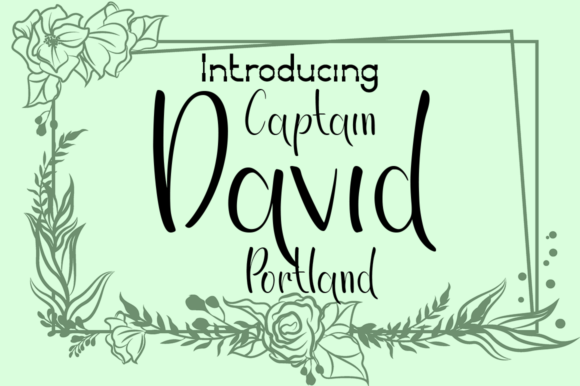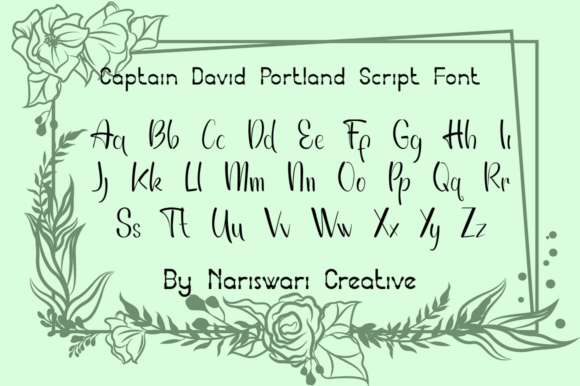
About Captain David Portland Font
Captain David Portland sounds like a delightful and versatile handwritten font that can add a touch of charm and elegance to various design projects. Let’s explore some creative ways to use Captain David Portland font and enhance the visual appeal of different materials:
1. Wedding Invitations: Utilize Captain David Portland font for wedding invitations, creating a sophisticated and personalized touch for the couple’s special day.
2. Thank You Cards: Design heartfelt thank you cards with Captain David Portland font, conveying gratitude with a touch of elegance.
3. Inspirational Quotes: Use the font to create beautiful graphics featuring inspiring quotes, perfect for sharing on social media or printing as wall art.
4. Greeting Cards: Design unique greeting cards for various occasions, such as birthdays, anniversaries, or holidays, showcasing the charm of the font.
5. Brand Logos: Apply Captain David Portland font to brand logos, especially for businesses aiming to convey a warm and friendly image.
6. Business Cards: Use the font in business card designs to make a lasting impression with a touch of handwritten elegance.
7. Personal Stationery: Incorporate Captain David Portland font into personal stationery items like letterheads and envelopes, adding a touch of sophistication.
8. Social Media Graphics: Create engaging social media graphics using the font, combining it with captivating visuals for increased impact.
9. Blog Graphics: Utilize Captain David Portland font to design attractive blog post graphics, making the content more visually appealing.
10. Art Prints: Design artistic prints using the font, combining it with illustrations or photographs to create eye-catching wall art.
11. Calligraphy Overlays: Apply Captain David Portland font as a calligraphy overlay to enhance photographs or artwork.
12. Gift Tags: Design unique gift tags using the font, adding a personalized touch to presents for special occasions.
13. Menu Headers: Use Captain David Portland font for menu headers in restaurants or cafes, elevating the dining experience.
14. Event Invitations: Create elegant event invitations, such as cocktail parties or formal gatherings, using the font’s charming appeal.
15. Handwritten Signage: Use Captain David Portland font for handcrafted signage at events, fairs, or markets, adding a touch of authenticity.
16. Boutique Branding: Apply the font in branding materials for boutiques or specialty stores, reflecting a warm and welcoming atmosphere.
17. Craft Projects: Incorporate Captain David Portland font into various DIY craft projects, such as scrapbooking or homemade gifts.
18. Book Cover Titles: Use the font for book cover titles or chapter headings, creating an elegant and inviting design.
19. Web Design: Integrate Captain David Portland font into web design elements, such as headers or call-to-action buttons, for a unique look.
20. Vintage-Themed Designs: Embrace the font’s charming and elegant style to create vintage-themed designs with a touch of nostalgia.
In conclusion, Captain David Portland font’s charming and elegant qualities make it an excellent choice for a wide range of design projects, adding a touch of handwritten sophistication. Whether it’s for wedding invitations, branding, or social media graphics, this versatile font can truly enhance the visual appeal of any design.